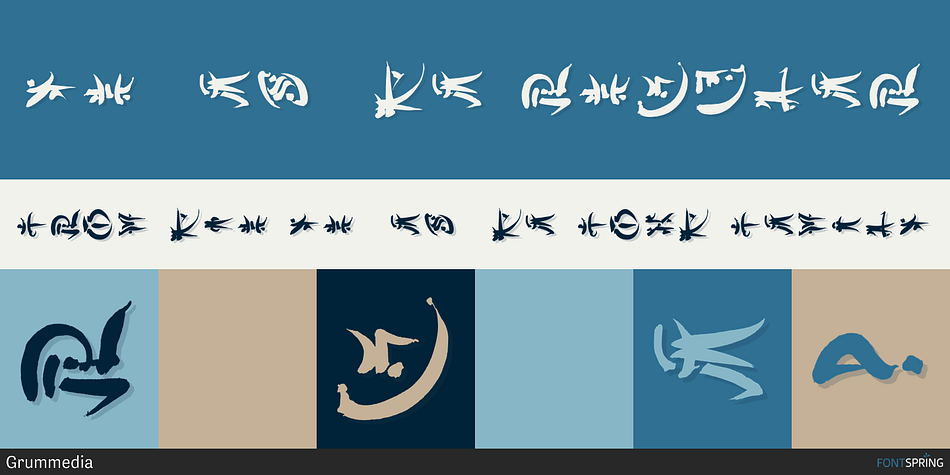
Ye-As-Ta is a novelty and foreign font published by Grummedia.
Ye-As-Ta is a unique interpretation of traditional brush drawn oriental calligraphy.
A caps only font, the characters type English style left to right but appear laid on their side. When the text box is rotated 90 degrees clockwise the text reads top right to bottom left, oriental style.
A fun typeface, though reading can require a little practice!